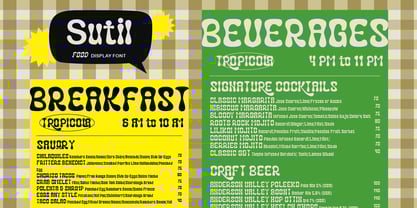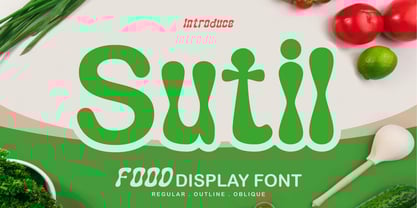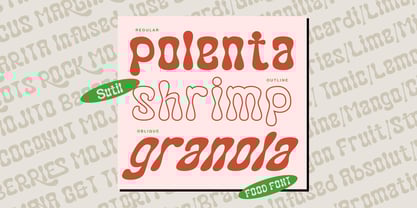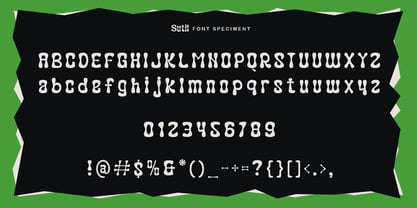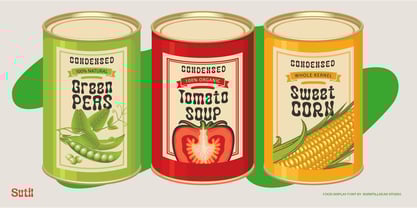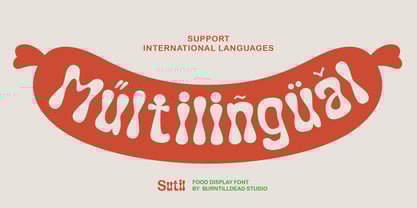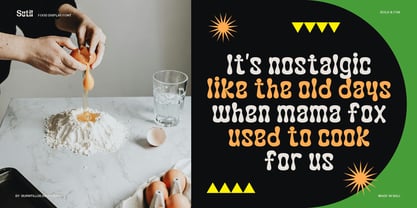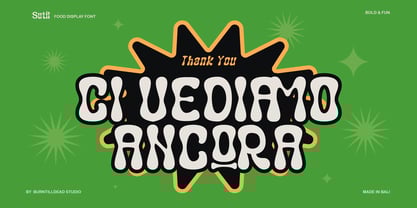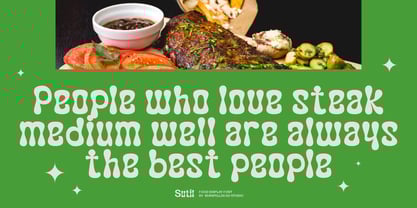
Sutil
by Burntilldead
The Sutil Font Family was designed by Eric Kurniawan and published by Burntilldead. Sutil contains 3 styles and family package options. More about this family
Meet Sutil, a fresh, bold and playful food font, perfect for food branding, restaurant menus, food packaging, and culinary design projects. Its smooth, wavy letterforms bring a lively and inviting feel, making your design look delicious and eye-catching.
Designed for food-related businesses, cafes, bakeries, and organic product branding, Pawon comes in three styles: Regular, Outline, and Oblique. Whether you're creating a logo, menu, social media content, or food advertisements, Sutil adds a tasty and fresh touch to your designs.
Features:
• A - Z set (Uppercase & Lowercase)
• Number
• Punctuation
• Alternate
• Ligature
• Multilingual
Designers: Eric Kurniawan
Foundry: Burntilldead